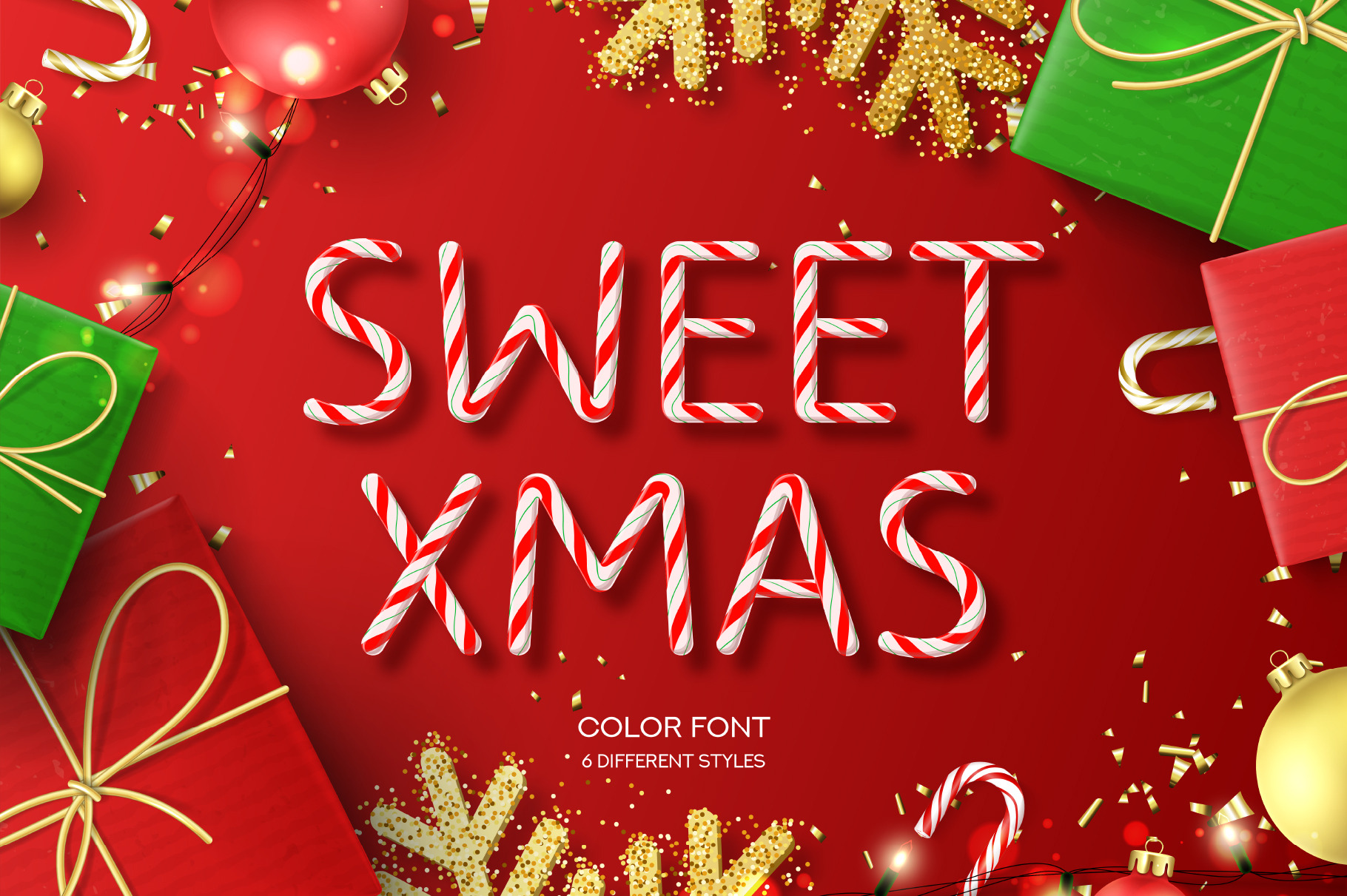
Hello! Introducing Sweet Xmas SVG Font. It is OpenType SVG color font which looks like realistic candy canes.
Sweet Xmas SVG Font was inspired by the sweetest attribute of Christmas and New Year. Thin and thick strips of glyphs have soft bends for more realistic view of each letter and sign. Glossy highlights and shadows make glyphs even more realistic. Sweet Xmas SVG Font is perfect for Christmas and New Year design.